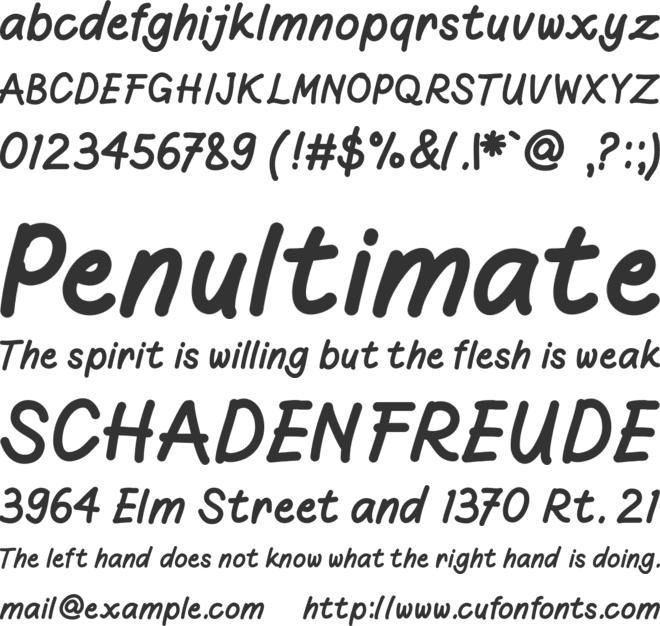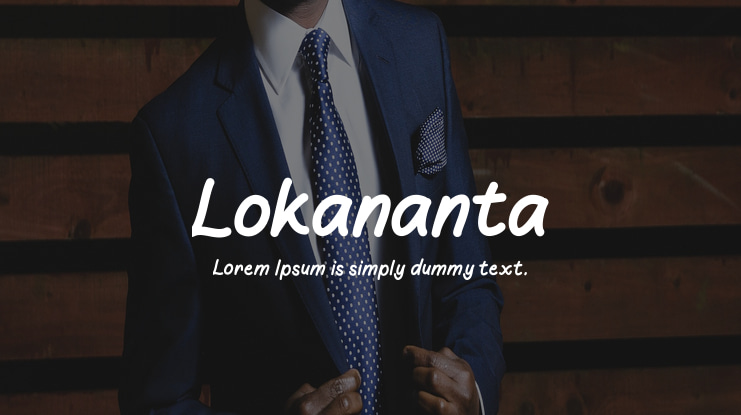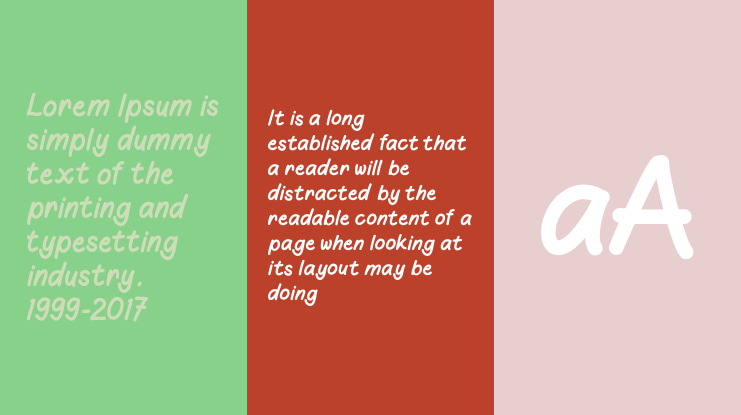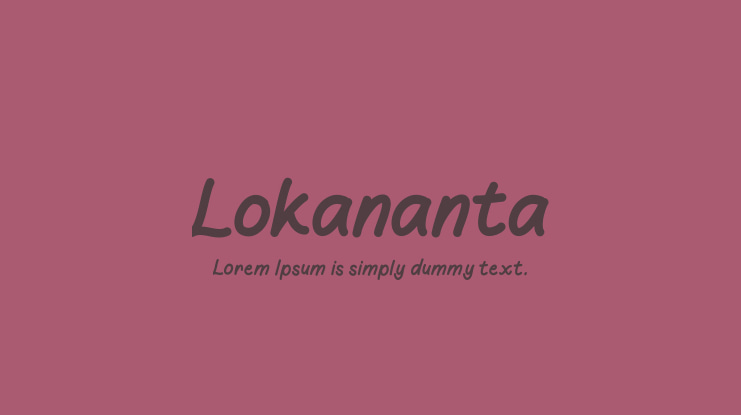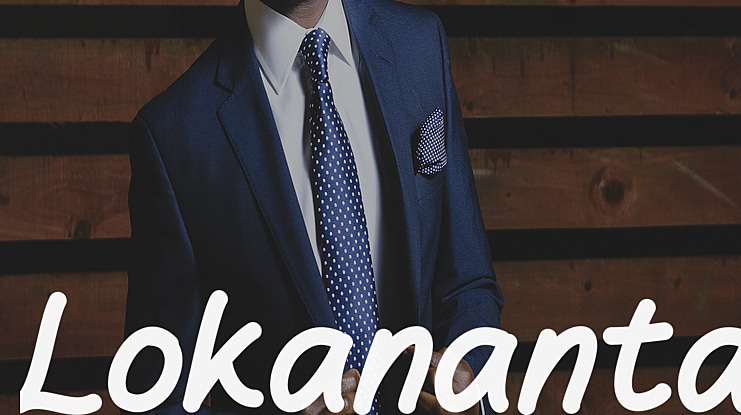
Lokananta Font
Proudly present our next font experimental project, Lokananta. Lokananta is natural handwritten font. It is perfectly suited for a wide variety of projects that required natural and some personal touch.
You can use it for Instagram posts, motivational quotes, or printed design such as t-shirt design, tote bag, or card invitations. Use this for main font on your word proccesing apps, it works perfectly to give sense of natural touch and natural handwritten.
Lokananta font preview